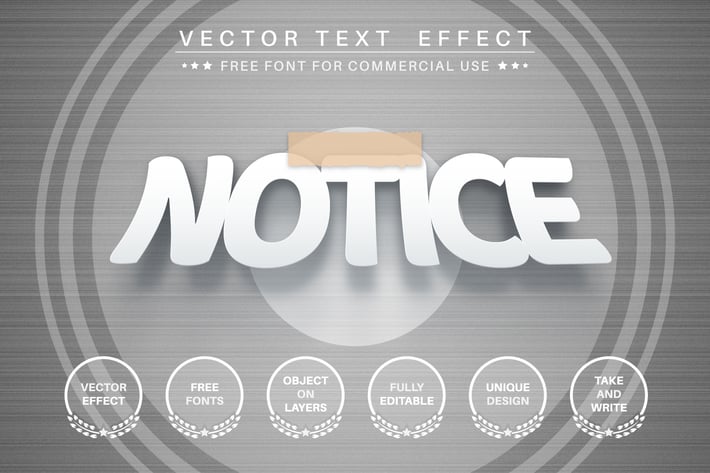
Attached paper- editable text effect, font style
Hello! I'm happy to introduce my new text effect "Attached piece of paper". Just write your word and the effect will apply! Be as creative as you like to be in expressing yourself using this unique “Attached piece of paper”. Effect is perfect for any project that needs a unique handy touch whatever else your imagination leads you to!